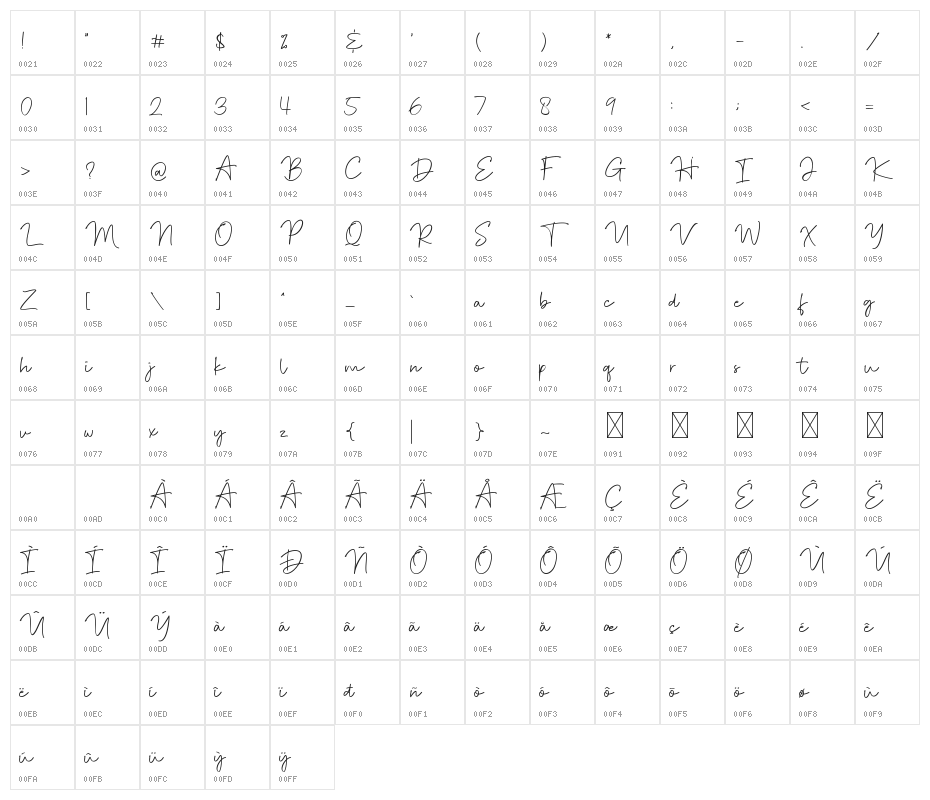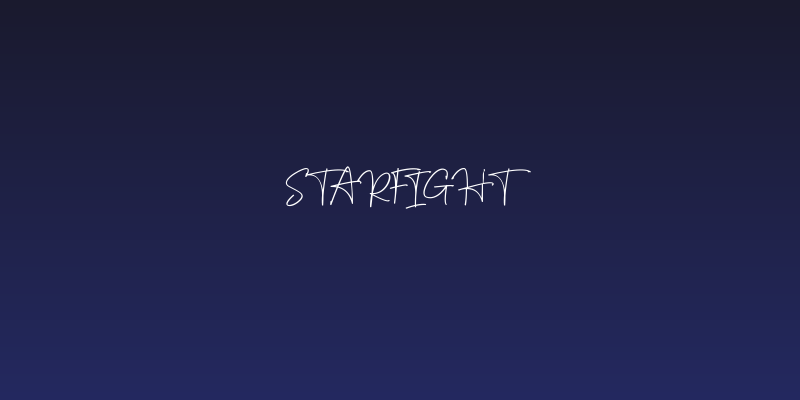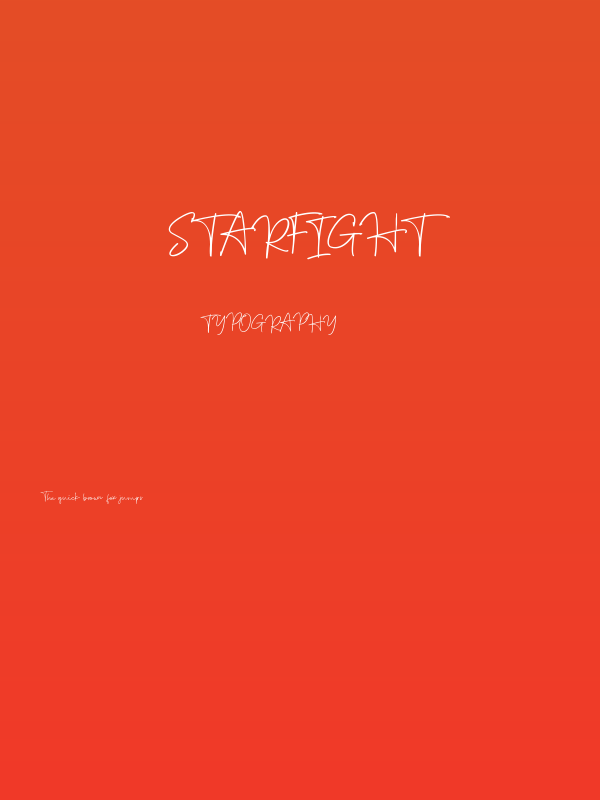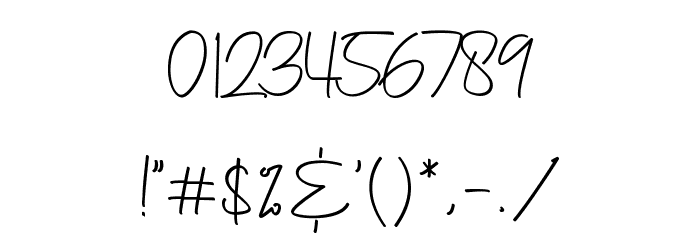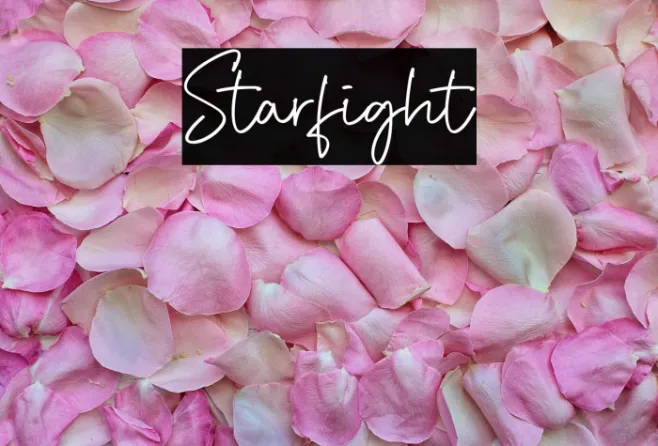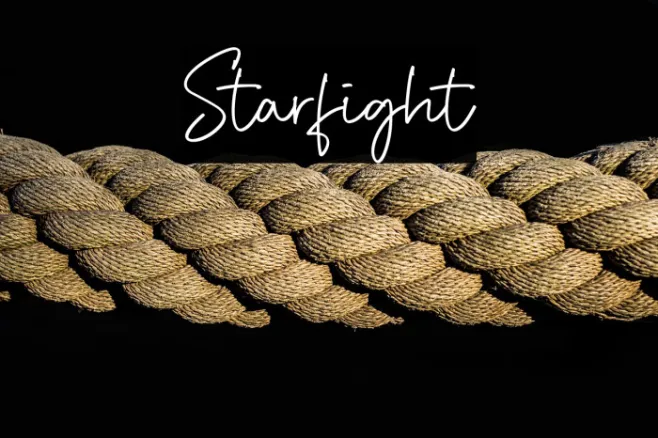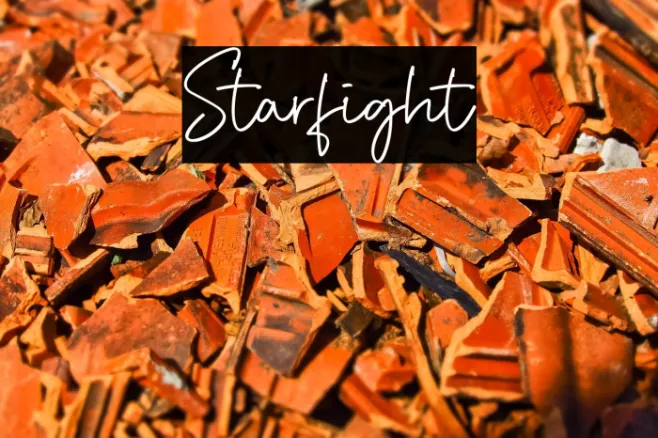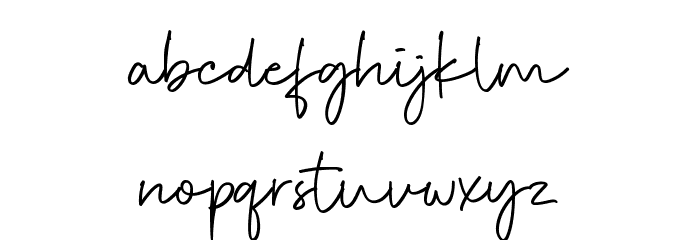
Starfight Font
Starfight Description
This font features a flowing, cursive style with a handwritten appearance. The letters are elegantly connected, giving it a natural and personal touch. The uppercase characters are slightly more elaborate, while the lowercase letters maintain a consistent, smooth flow. Numbers and special characters are designed to match the overall aesthetic, providing a cohesive look. The strokes are thin and delicate, adding to the font's graceful and airy feel. This style is perfect for projects that require a personal, artistic touch.
| Proposed Projects | Ideal for wedding invitations, personal branding, greeting cards, and artistic projects. |